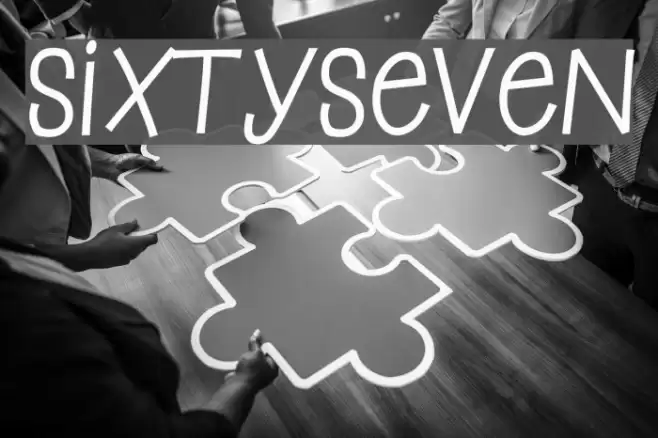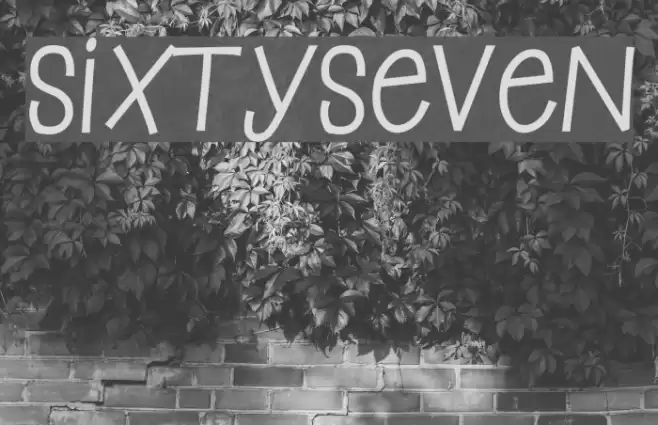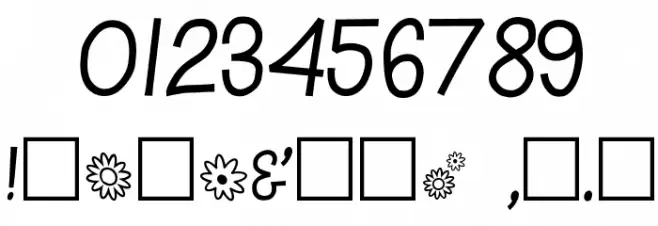
SixtySeven Font
SixtySeven Description
This font features a playful and casual style, characterized by its rounded and slightly slanted letterforms. The uppercase letters exhibit a consistent height with a gentle curve, while the lowercase letters maintain a similar playful aesthetic with a mix of rounded and angular elements. The numerals are distinct and easy to read, following the same casual style. Special characters are included, adding versatility to the font. Overall, this font exudes a friendly and approachable vibe, making it suitable for informal and creative projects.
A playful, casual font with rounded, slightly slanted letterforms from Handwritten fonts.
- Proposed Projects: Ideal for children's books, greeting cards, playful branding, and creative posters.
- Overall Style: Playful, Casual
- Use Case: Headlines, Informal Text, Creative Projects